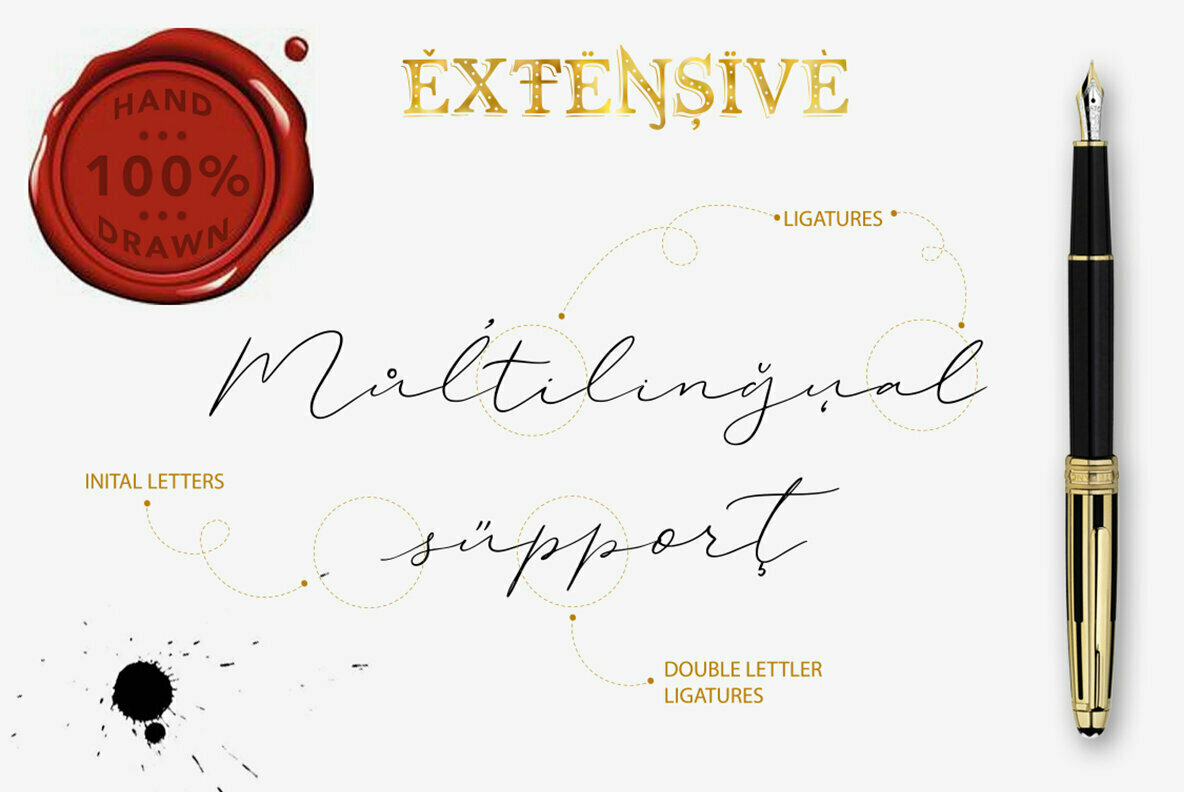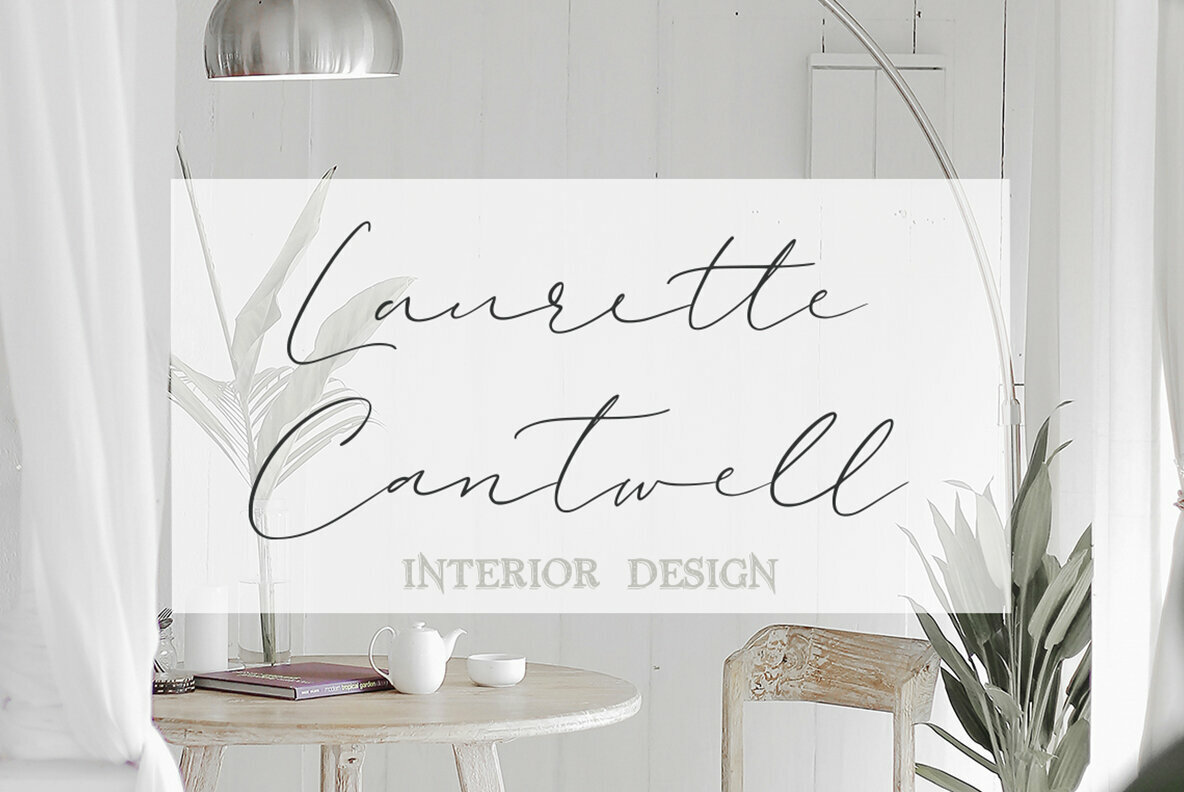
Broadway Lights Font Duo
Broadway Lights presents an elegant fusion of script and serif styles, creating a harmonious balance ideal for a diverse range of projects. Whether designing posters, greeting cards, or branding materials, this duo offers a vintage charm that can stand alone or blend seamlessly together. Its expressive, hand-drawn quality adds an element of lightness and sophistication, making it a valuable addition to any designer's toolkit. Broadway Lights enriches your design process with its dual-type sophistication and vintage allure, meeting both practical and aesthetic demands.Broadway Lights Font Duo: A Versatile Script and Serif Pair